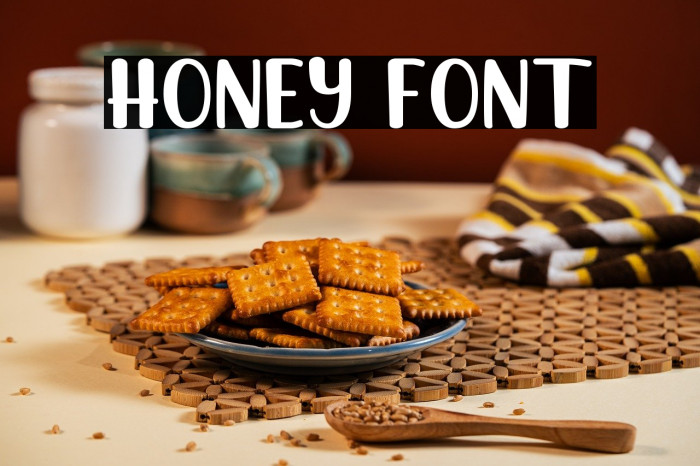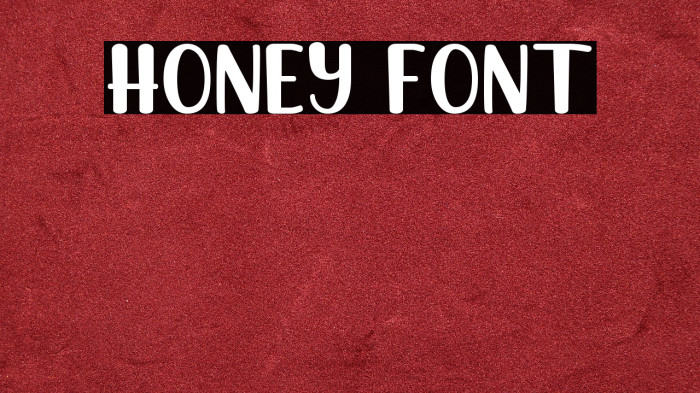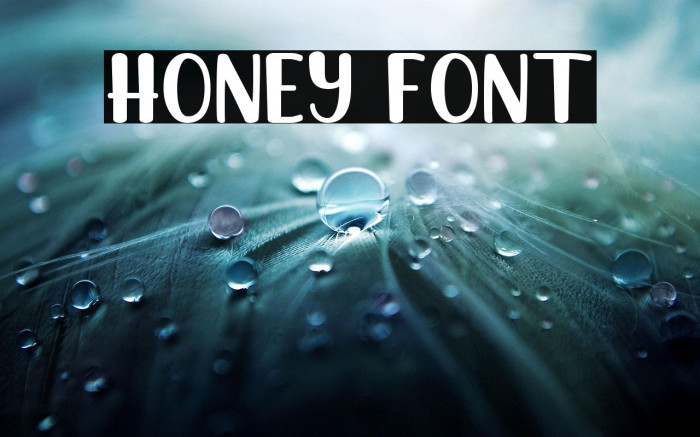
Honey Font
Honey Description
This font features a playful and bold style with rounded edges and a smooth flow, creating a friendly and approachable appearance. The letters are slightly condensed, giving it a compact look while maintaining readability. The uppercase and lowercase characters are consistent in style, with a slight slant that adds a dynamic feel. The numbers are clear and distinct, matching the overall aesthetic. Special characters are well-integrated, maintaining the font's cohesive look. This font is ideal for projects that require a touch of whimsy and charm.
Overall StylePlayful
Proposed ProjectsPerfect for children's books, playful branding, greeting cards, and social media graphics.